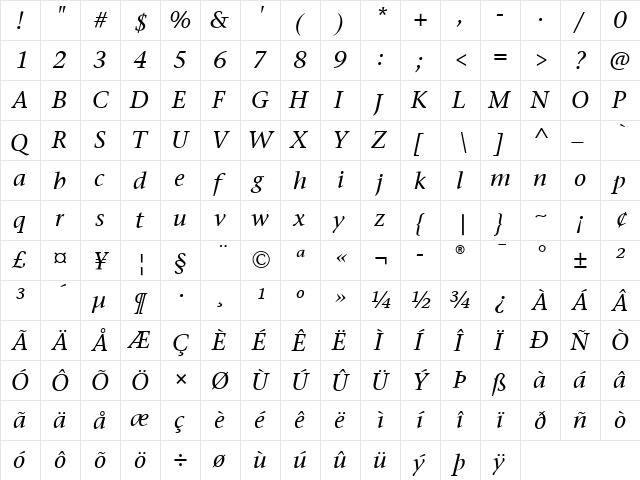
Stone Serif ITC Medium Italic
Design Context for Stone Serif ITC Medium Typeface
Stone Serif ITC Medium brings classic typographic sensibility to the table — its serifs and measured letterforms reflect centuries of print heritage. The dynamic lean of this cut emphasises speed and emphasis in any layout.